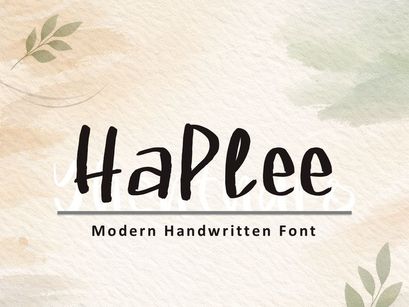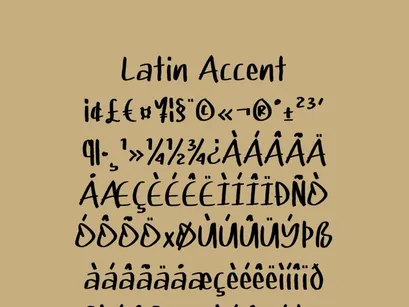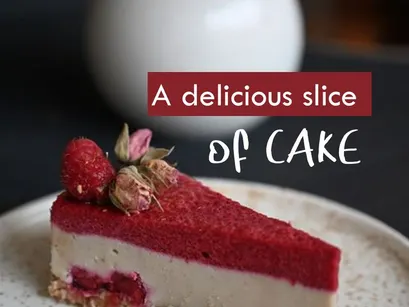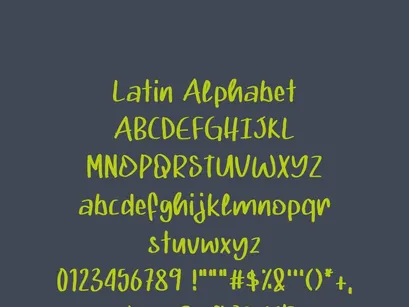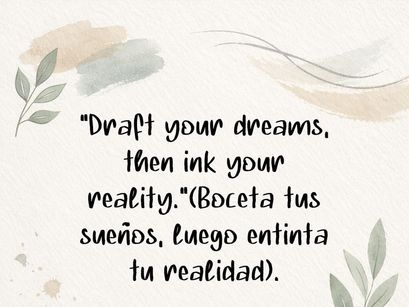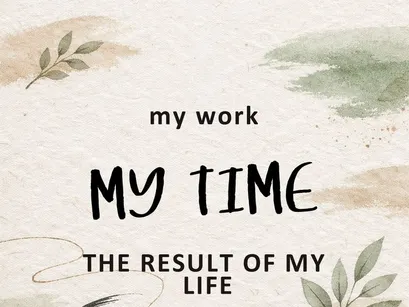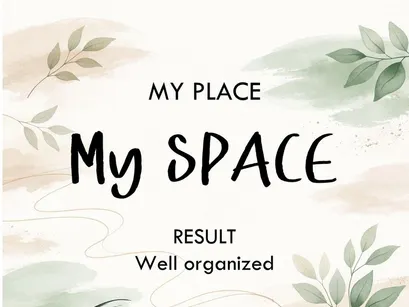
HaPlee is a modern handwritten font with soft, expressive strokes that convey joy, organization, and serenity. Designed for creative projects, planners, branding, and digital content, it combines naturalness with contemporary elegance.
• Full coverage of Latin characters and accents.
• Ideal for titles, inspirational quotes, and personal organization projects.
Perfect for those seeking a modern, clean, and balanced handwritten font.